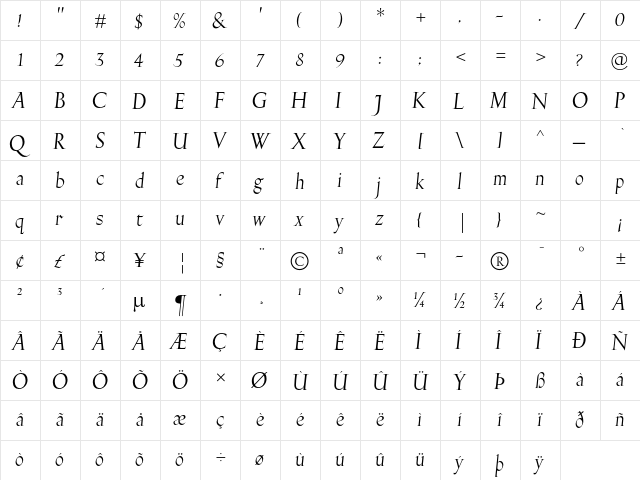
Gill Facia MT Std Italic Display
Design Context for Gill Facia MT Std Typeface
Gill Facia MT Std is built around its visual character rather than neutral utility — its distinctive forms are designed to make an impression at display sizes. Its italic angle brings a sense of urgency and motion to the letterforms.
Font Pairing: Pair with a clean neutral sans-serif for body copy to let Gill Facia MT Std's character lead without overwhelming the composition.
Pro Tip: Treat Gill Facia MT Std as the centrepiece of your typographic hierarchy. One strong heading set in a decorative face can carry an entire layout.